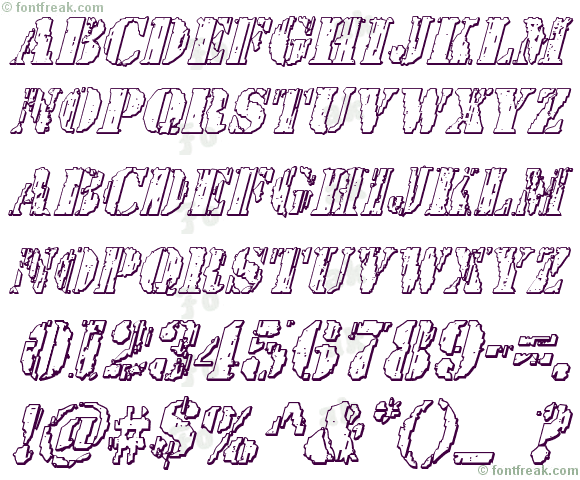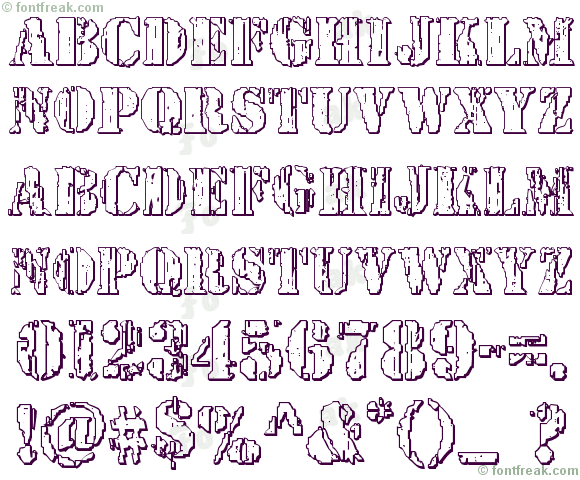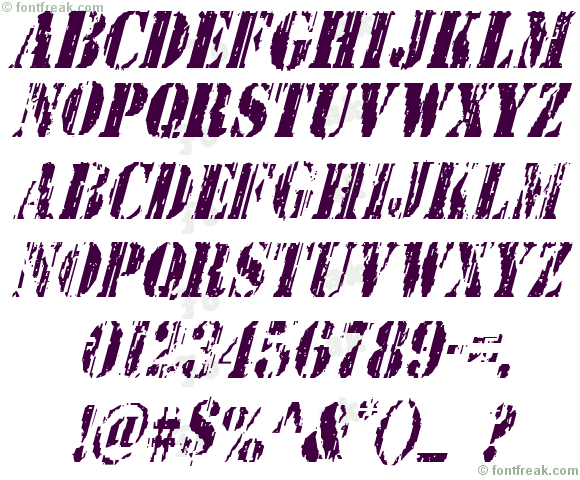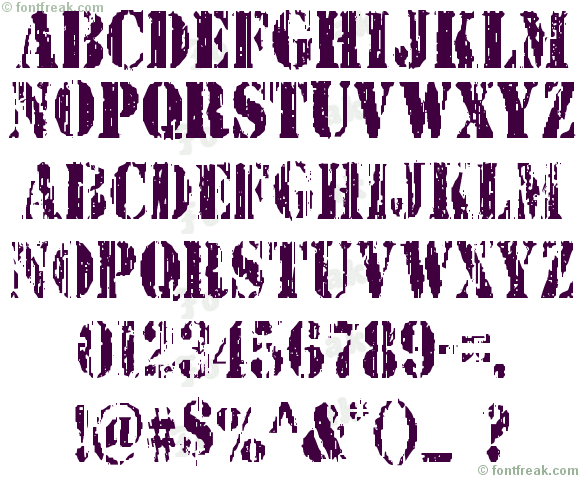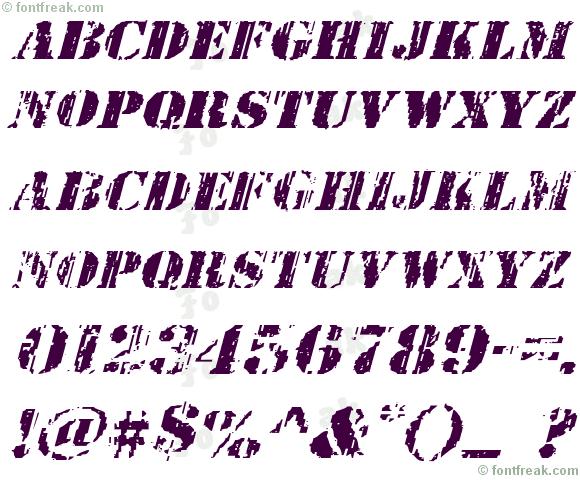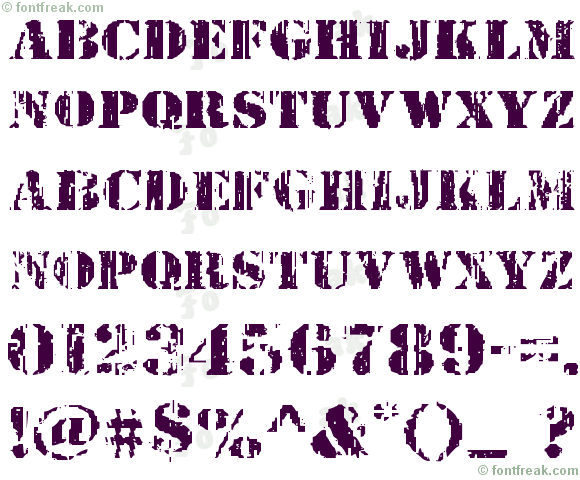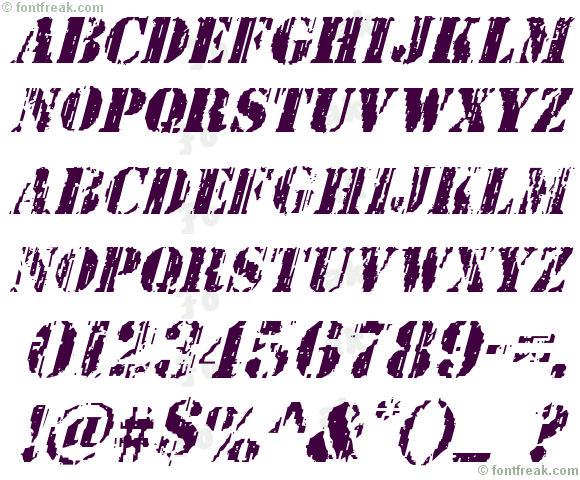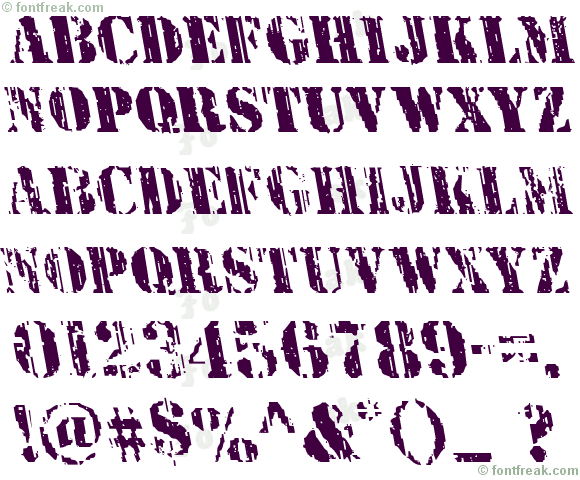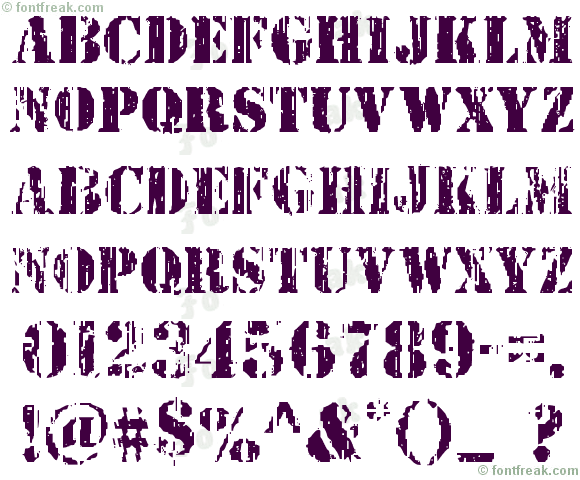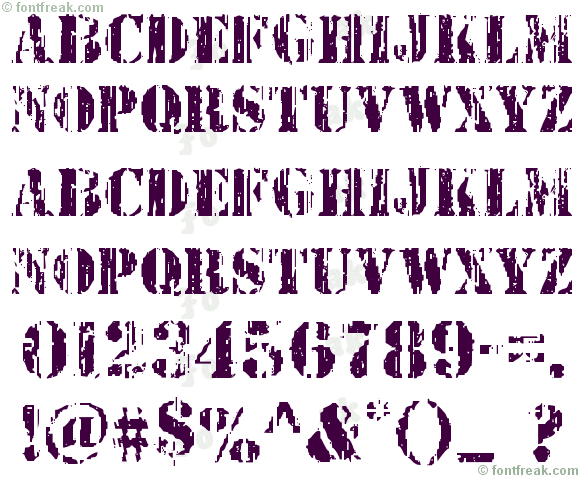
Wetworks Expanded
About Wetworks Expanded
Wetworks Expanded by Daniel Zadorozny is a striking display font that falls within the decorative category. Released in 2012, this font captures attention with its unique staggered and condensed structure. The visual style features a bold stroke weight that conveys strength, while the irregular shapes create a dynamic, almost 3D appearance. The contrast between thick and thin lines adds depth, making it ideal for projects that require a robust yet artistic touch. The spacing is thoughtfully designed, allowing for optimal legibility even in larger formats.
This font is particularly versatile, making it suitable for a variety of creative applications. It shines in movie posters, where its bold character can evoke excitement and intrigue. Additionally, Wetworks Expanded is perfect for graphic novels or comic book covers, providing a gritty and engaging aesthetic that draws readers in. It also works well for branding projects, especially for businesses looking to convey a modern and edgy vibe. Small business owners in creative industries, such as cafes or boutiques, can utilize this font on promotional materials or signage to attract attention. Content creators will find it effective for digital media, such as social media graphics or website headers, where impactful visuals are essential.